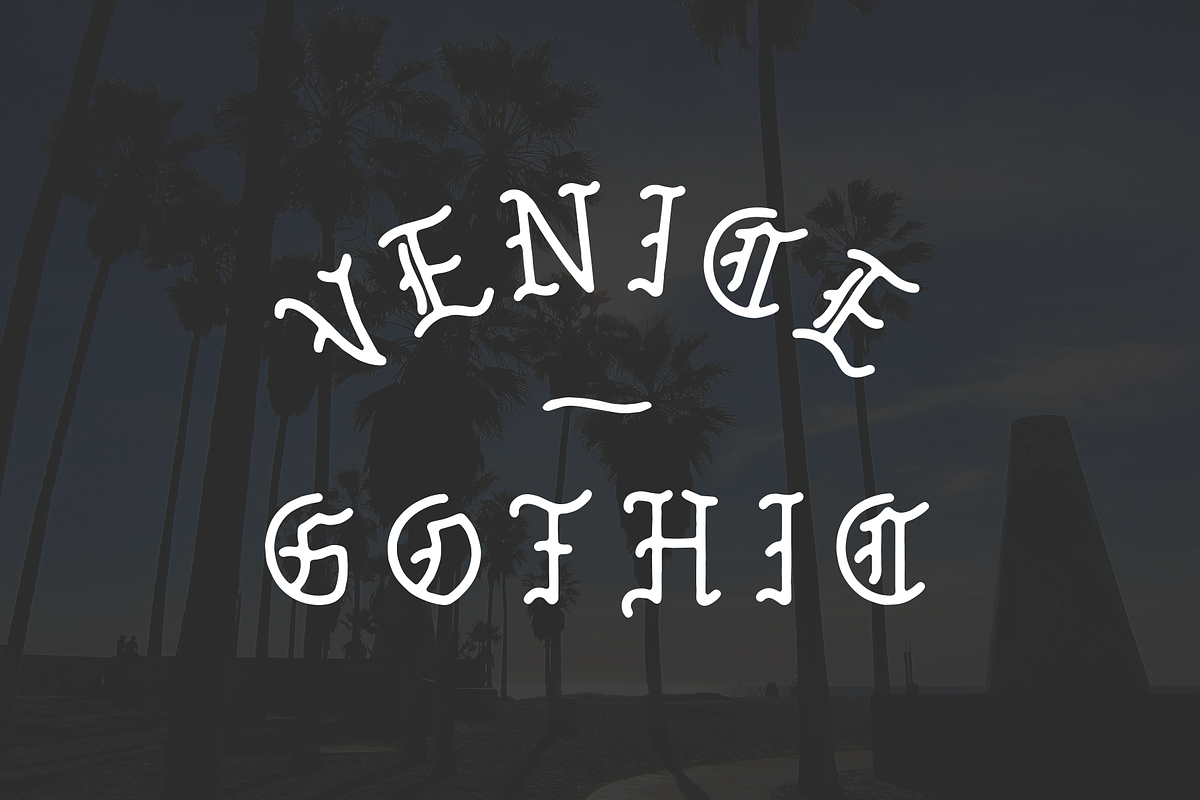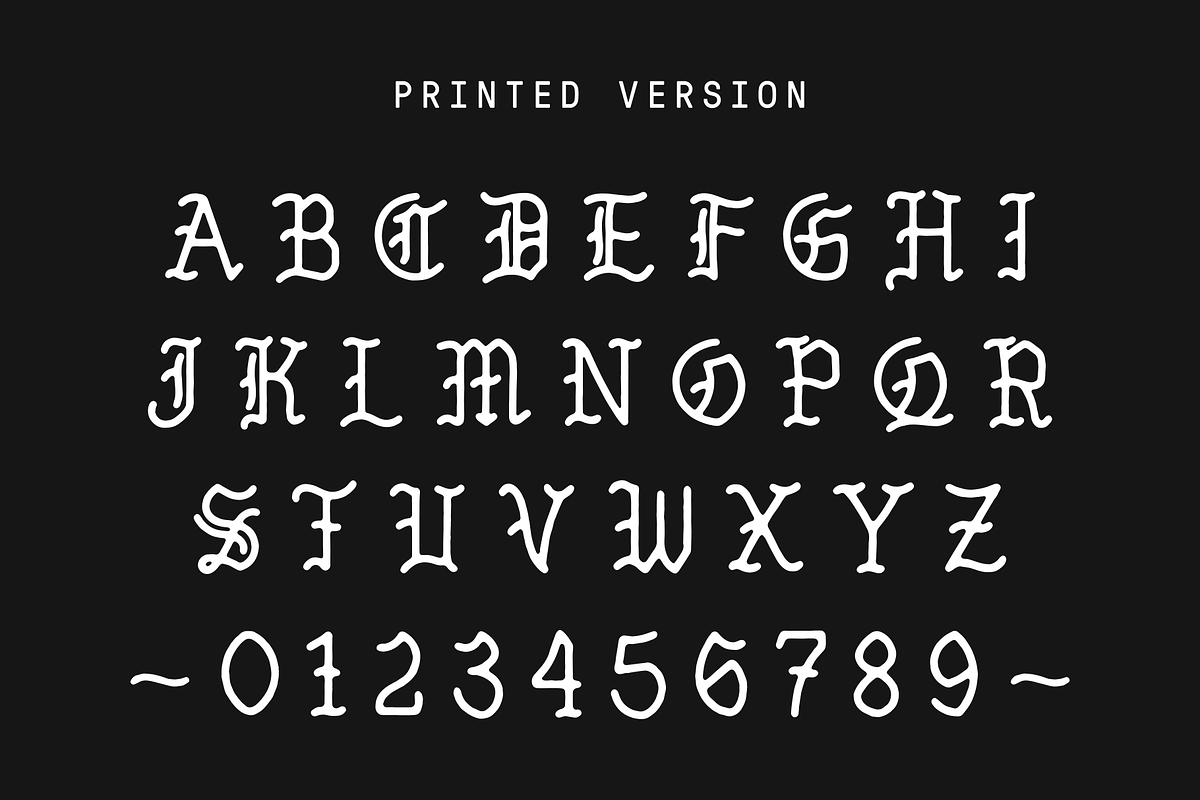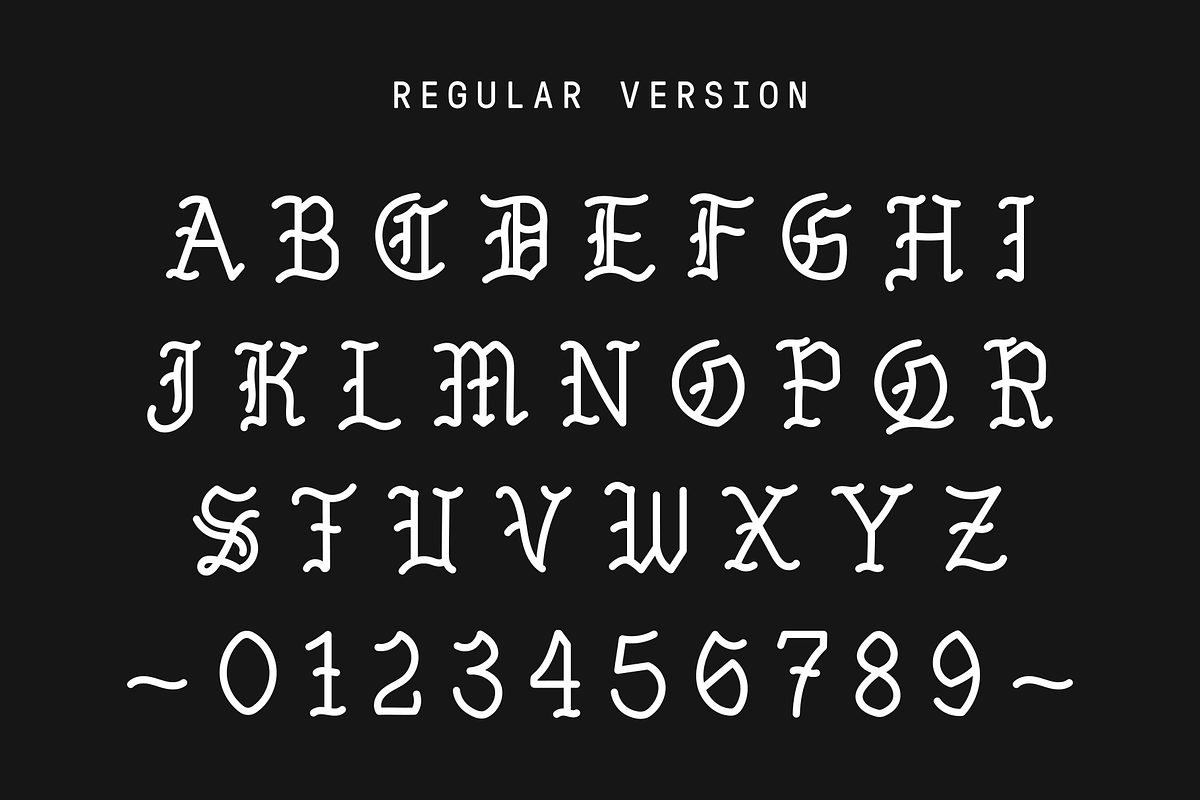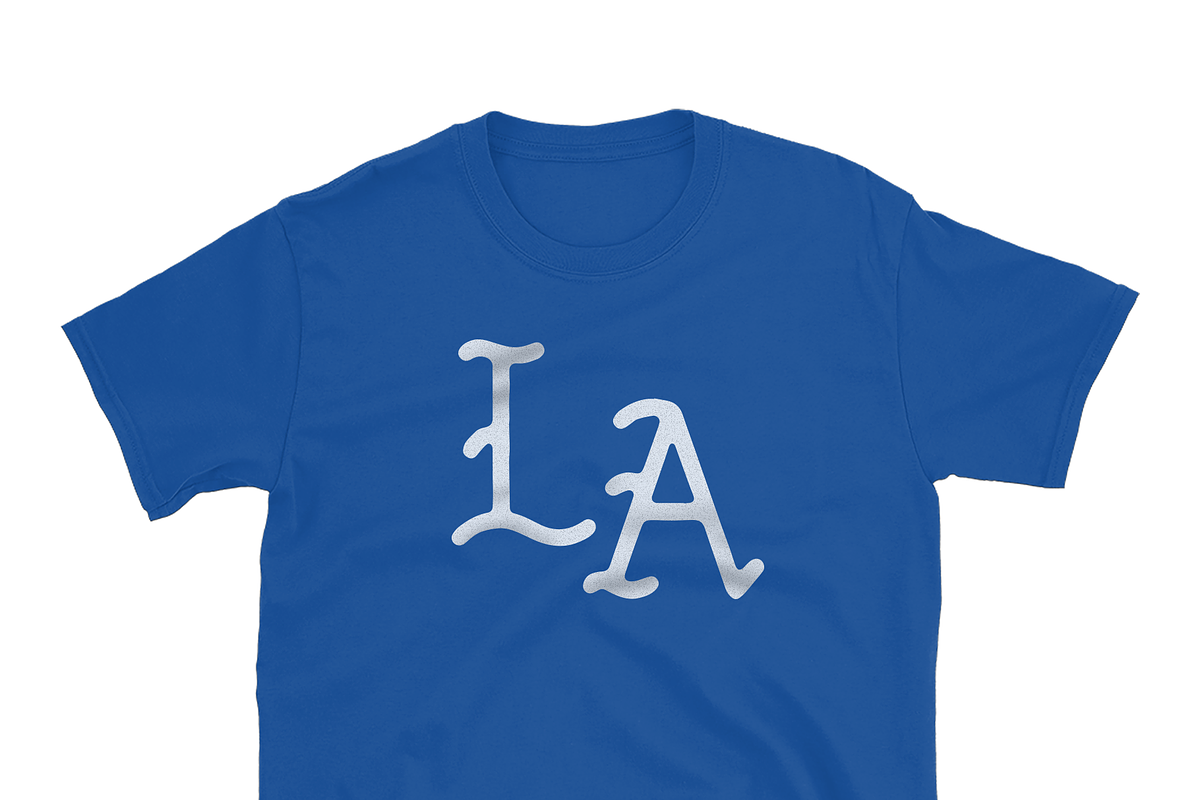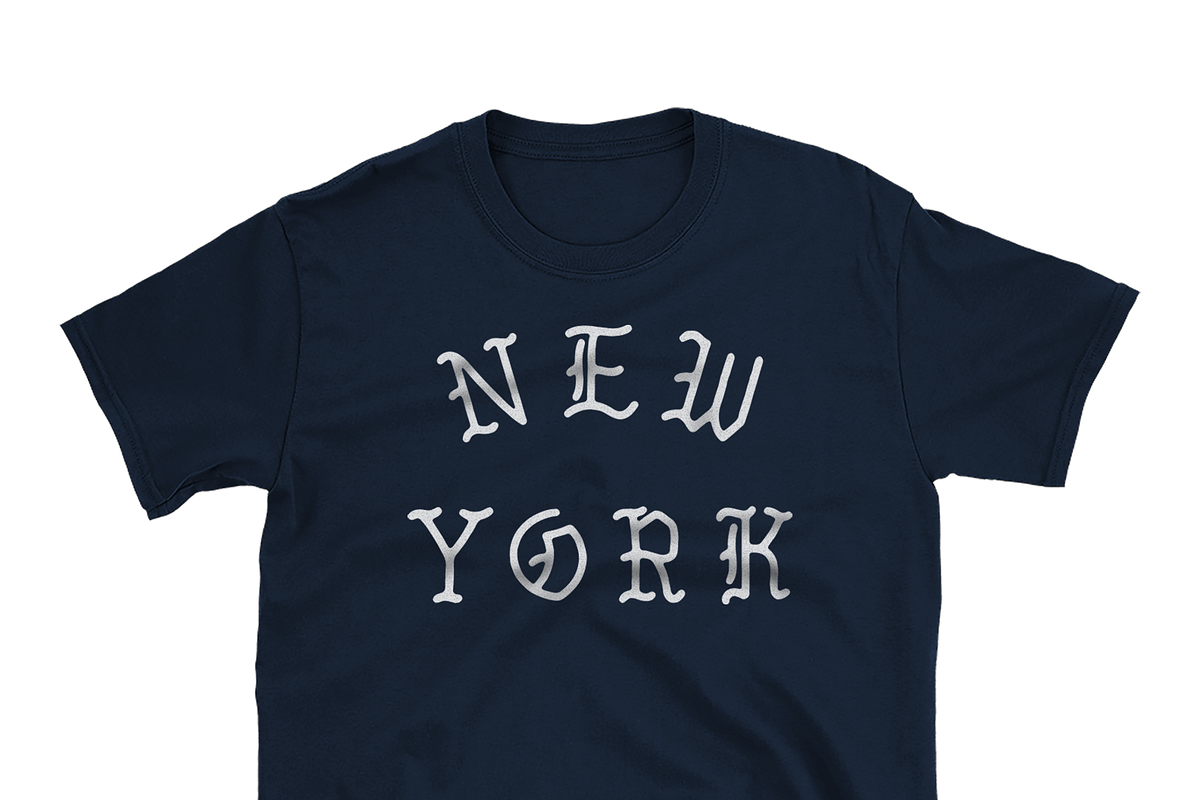
Venice Gothic - A Monoline Typeface
VENICE GOTHIC is a hand-drawn display typeface featuring a monoline build in a gothic styling.
The font features two versions, a regular version, and a roughened print version that features soft edges. Great for Apparel Design, Logos, Posters, Album Art, and basically anything you want to look bad ass.